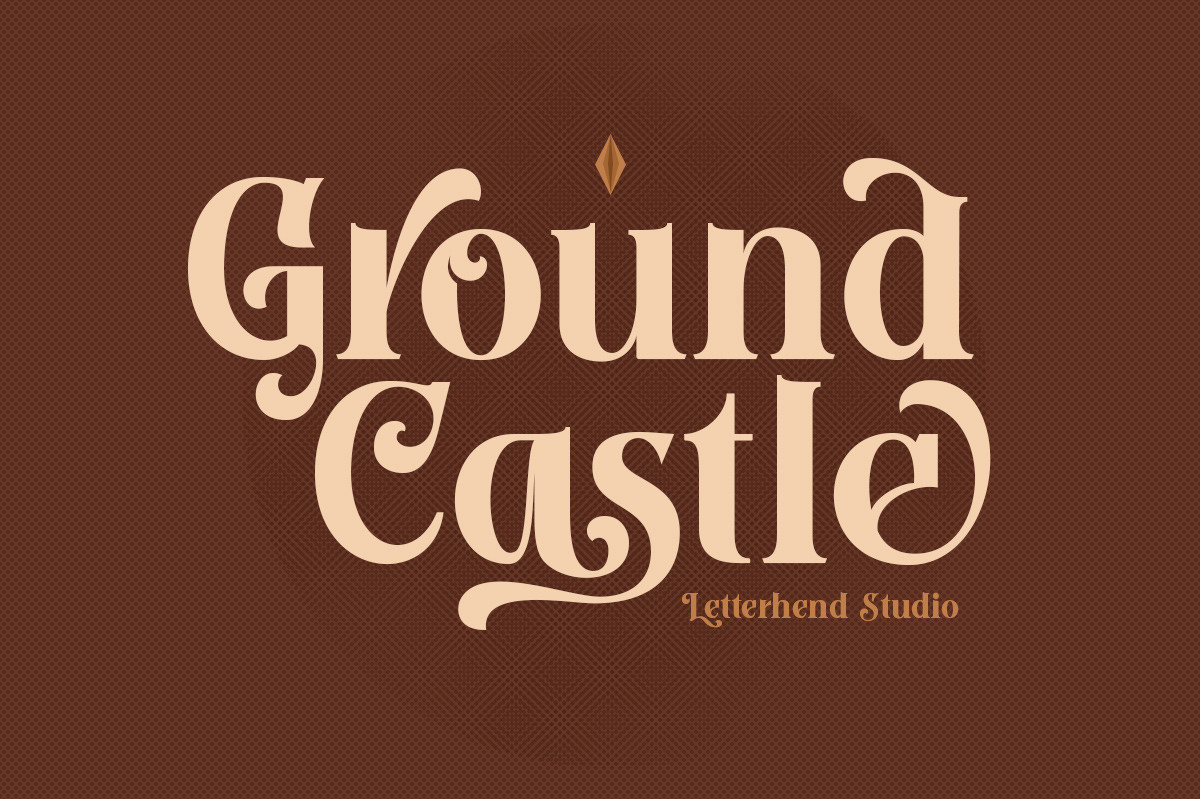
Ground Castle Font
Perfect for logos, headlines, posters, branding, and editorial design.
The Ground Castle Font excites designers with its bold, rugged style that evokes strength and stability, making it ideal for impactful design projects.
Font families: Ground Castle Regular, Ground Castle Bold.
The Ground Castle Font Free Download is a sturdy, display typeface featuring strong lines and sharp edges, perfect for outdoor branding, sports designs, and powerful headlines.
One of the key strengths of Ground Castle Font is its ability to command attention while maintaining clarity, making your messages stand out in both print and digital formats.
In branding, Ground Castle conveys reliability, toughness, and authority. It pairs well with earthy tones, textured backgrounds, and bold layouts to create memorable visuals.
For digital projects, this font enhances website headers, social media banners, and promotional materials, giving your content a commanding and confident presence.